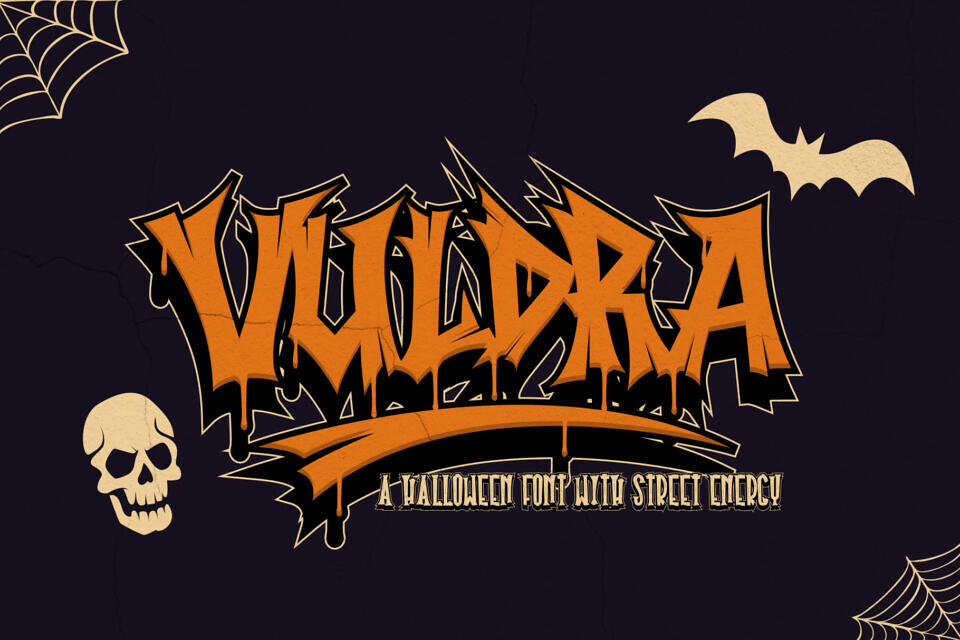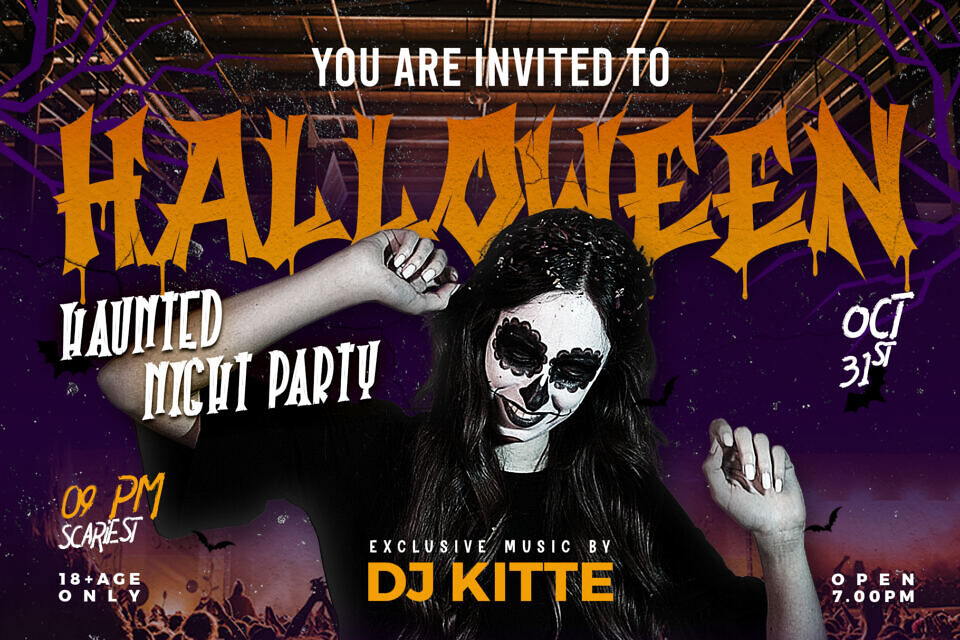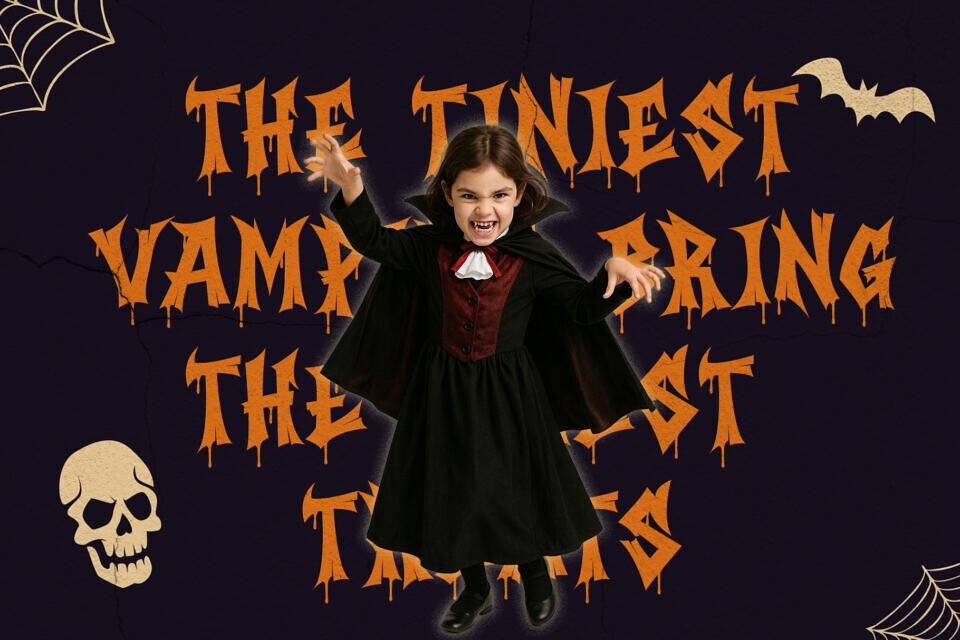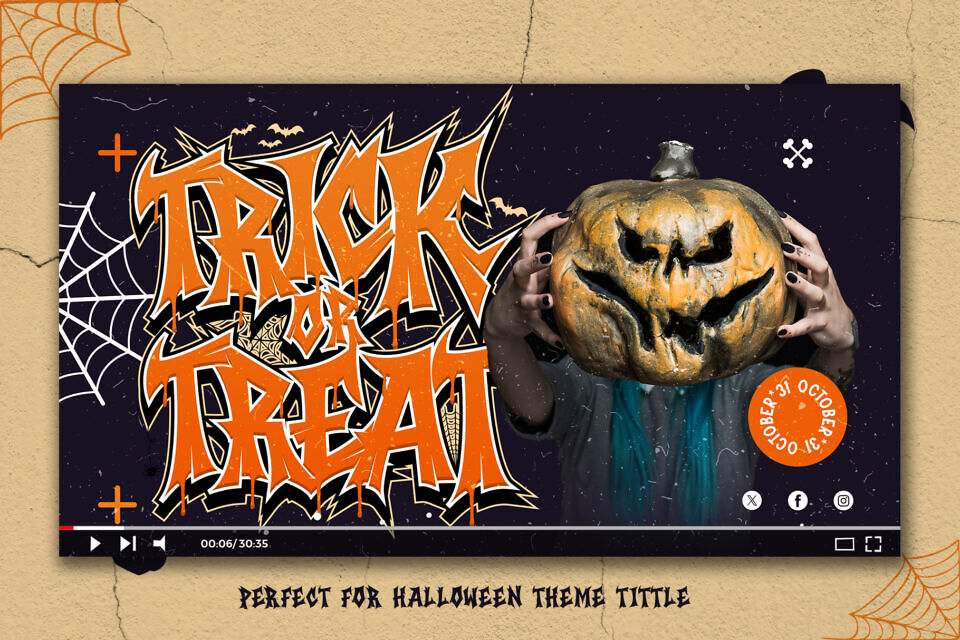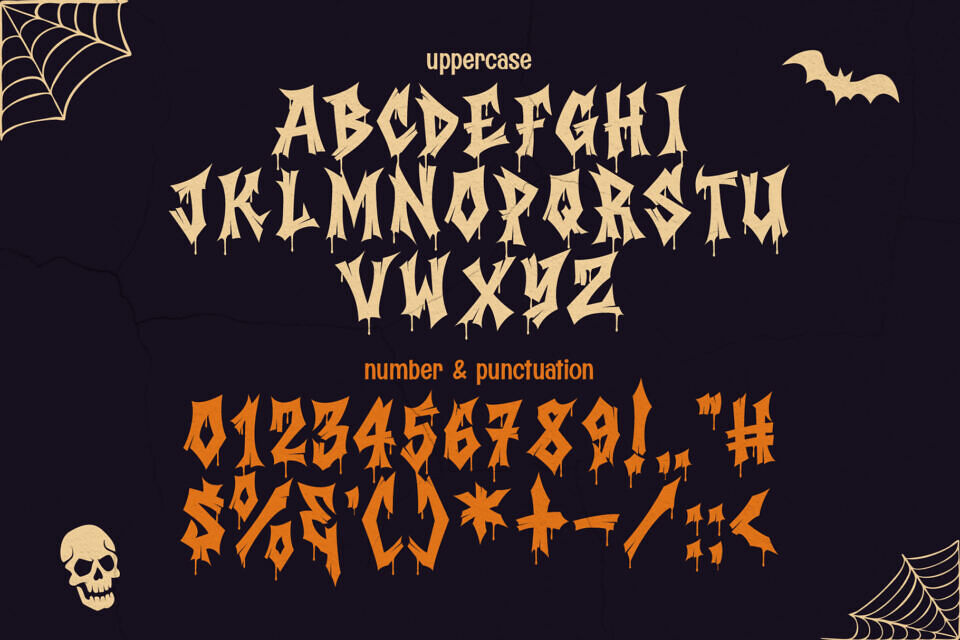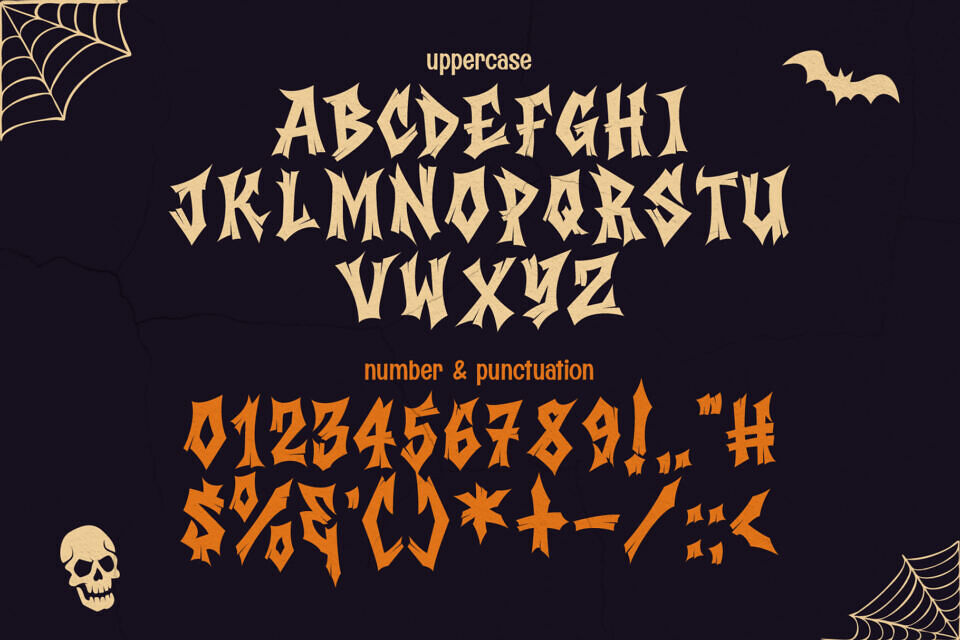
Vuldra is a bold Halloween font with street energy that blends creepy, spooky atmospheres with the raw force of urban graffiti culture. Built with uppercase characters, it’s perfect for loud titles, bold headlines, and powerful visual statements. Whether you are creating Halloween posters, horror-themed branding, or edgy street-inspired graphics, Vuldra gives your designs a haunted but stylish personality.
Packed in two unique styles—Clean and Melted—Vuldra adapts to both subtle spooky design and full-on dripping horror energy. Combined with multilingual support, this font is not just seasonal—it’s a global design weapon that thrives in every creative project.